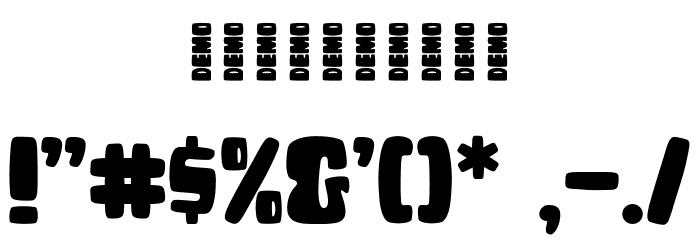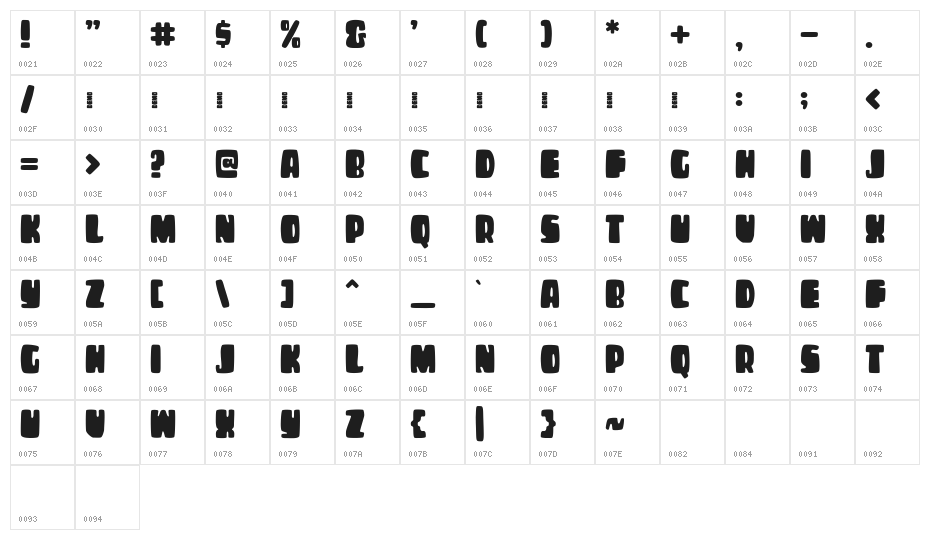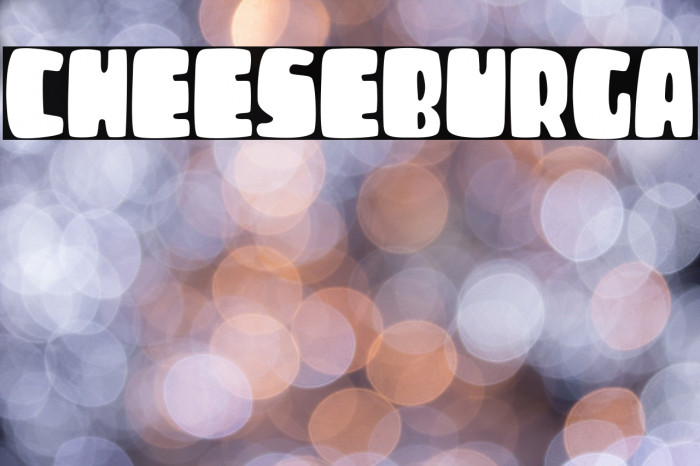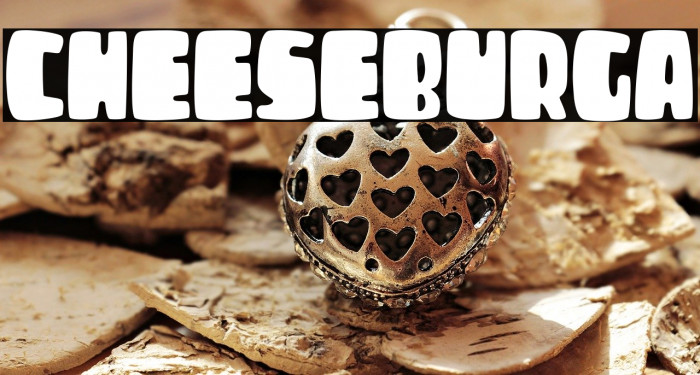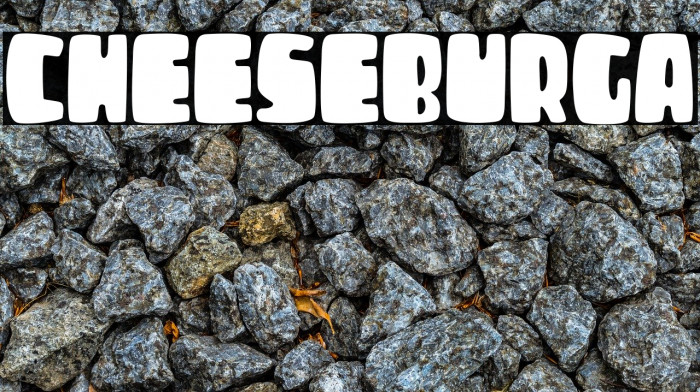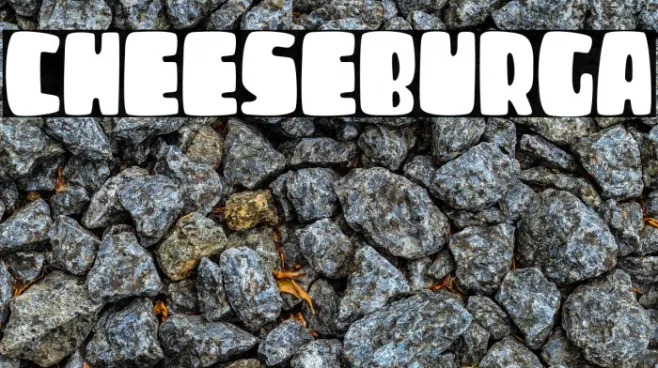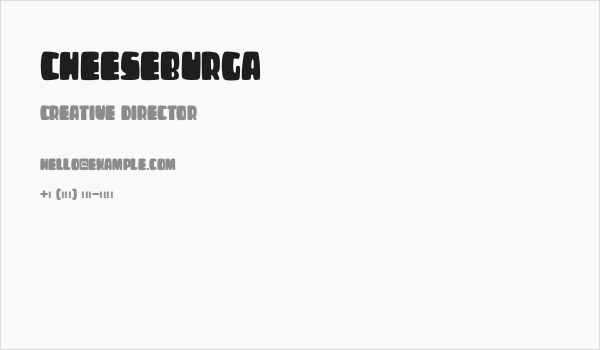
CHEESEBURGA Font
CHEESEBURGA Description
This bold and playful font features thick, rounded characters that convey a sense of fun and approachability. The letters are uniformly wide, with a slightly condensed appearance, giving them a chunky and substantial feel. The strokes are consistent in width, creating a low contrast that enhances the font's boldness. The overall style is modern and decorative, making it ideal for projects that require a lively and engaging typeface. The font includes a full set of uppercase and lowercase letters, numbers, and a variety of special characters, ensuring versatility in design applications.
| Proposed Projects | Perfect for children's books, playful branding, eye-catching posters, and fun packaging designs. |